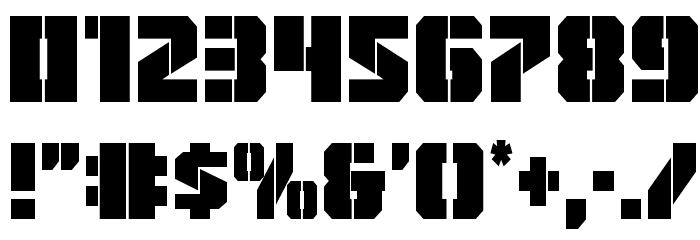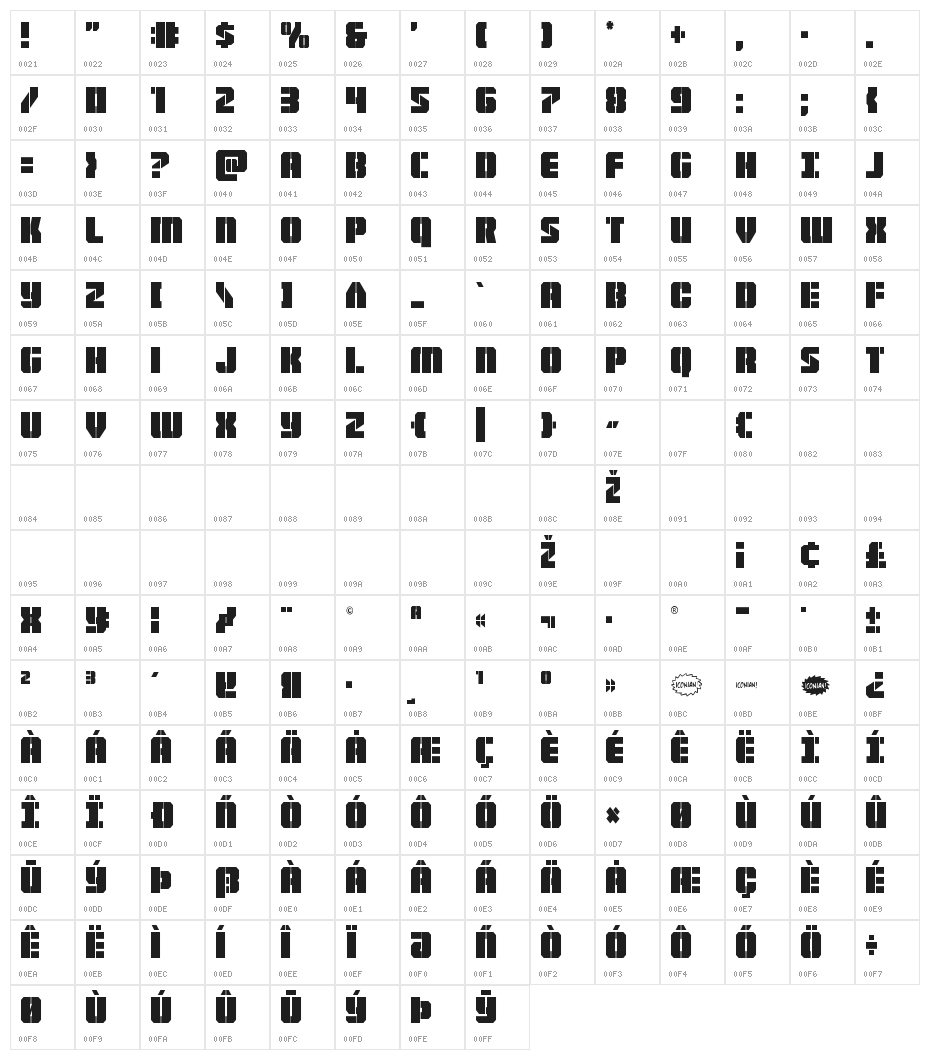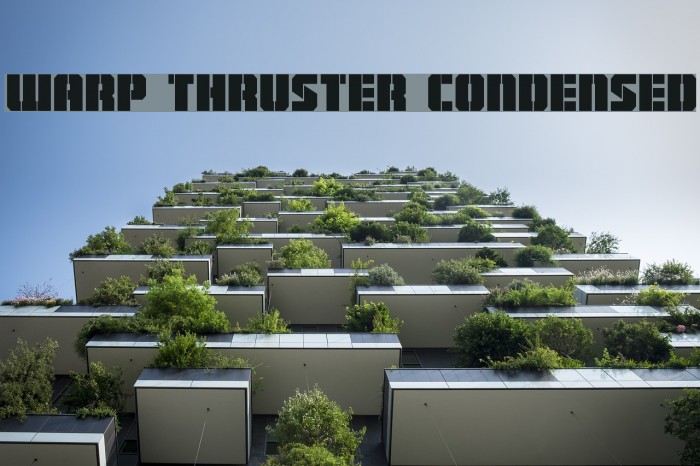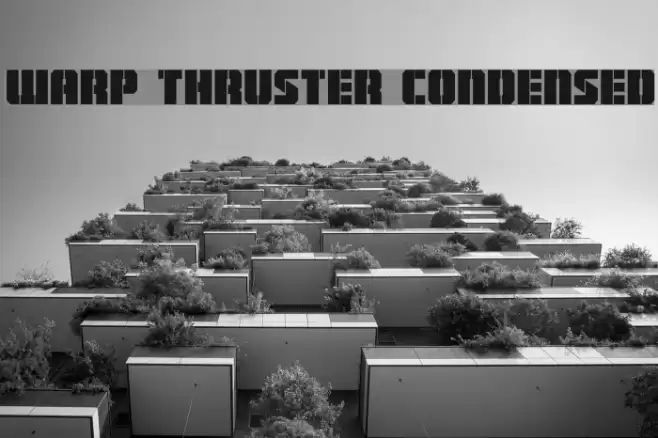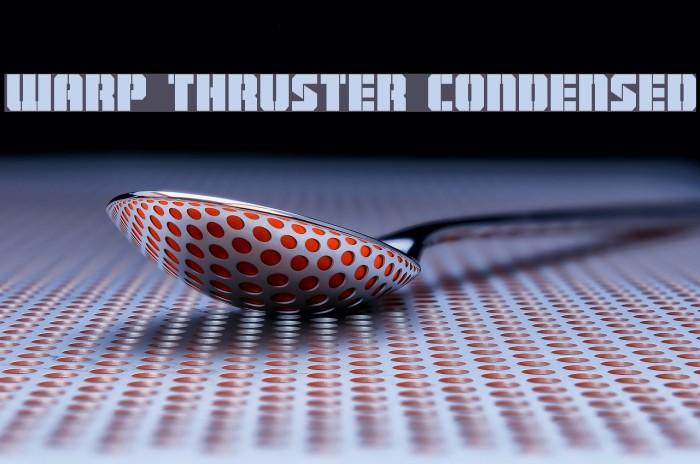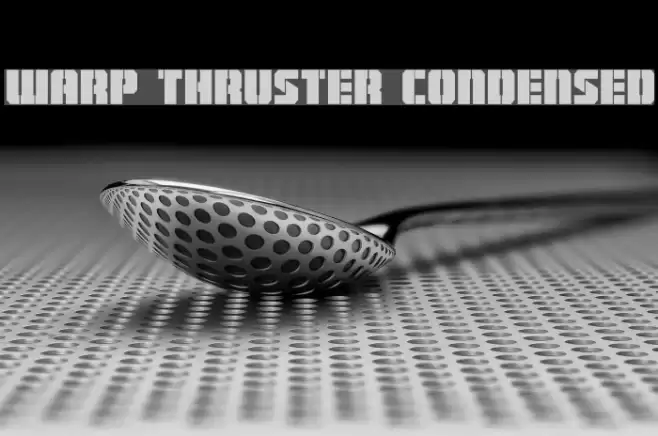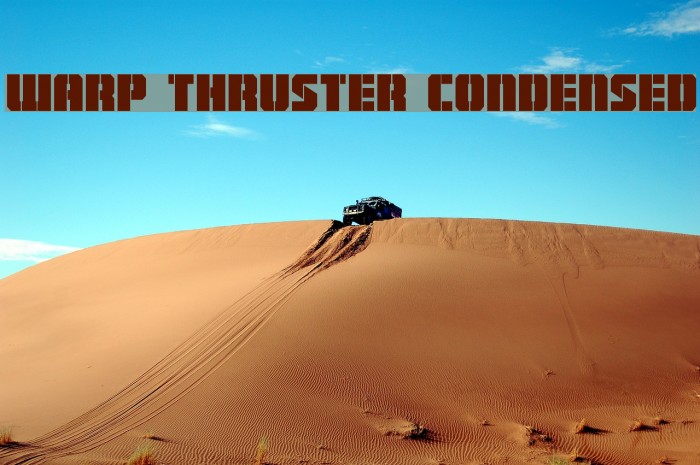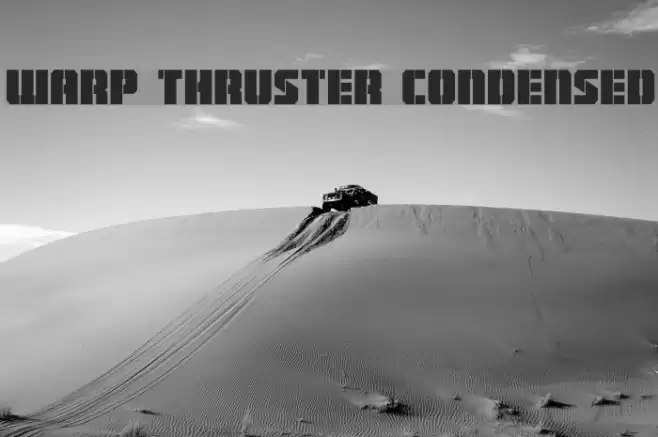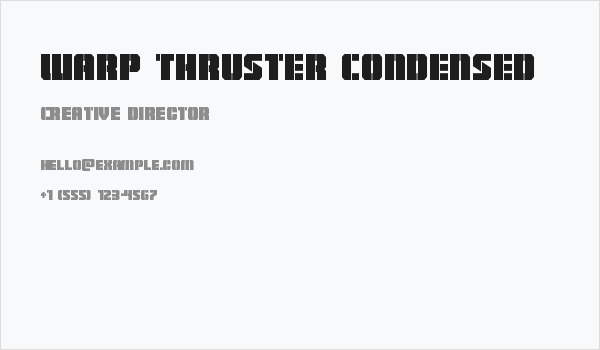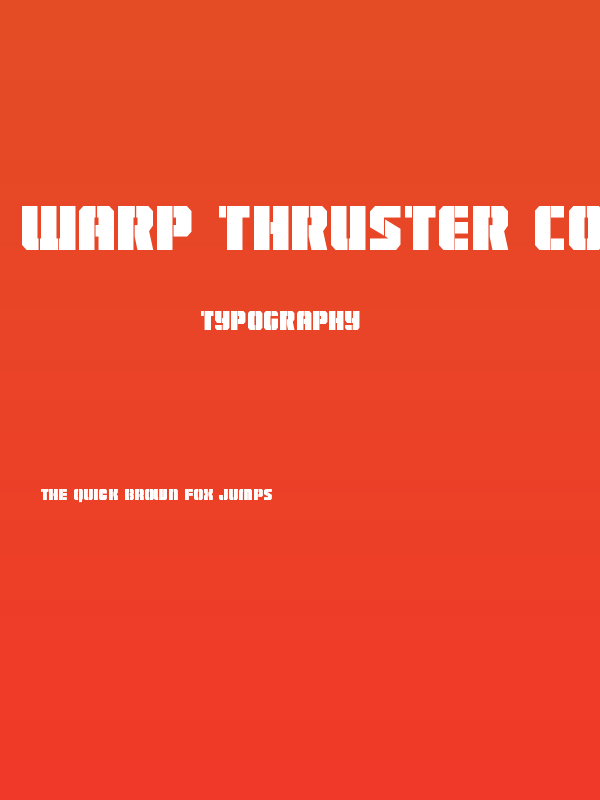
Warp Thruster Condensed Font
Warp Thruster Condensed Description
This font features a bold, geometric design with a futuristic and industrial feel. The characters are constructed with sharp angles and straight lines, giving them a blocky, robust appearance. The font is highly condensed, maximizing space efficiency while maintaining legibility. Its unique style is characterized by a strong presence and a modern aesthetic, making it suitable for attention-grabbing headlines and impactful designs. The uniform thickness of the strokes contributes to a cohesive and structured look, ideal for projects that require a bold statement.
| Proposed Projects | Ideal for sci-fi themed posters, video game titles, tech branding, and futuristic event flyers. |